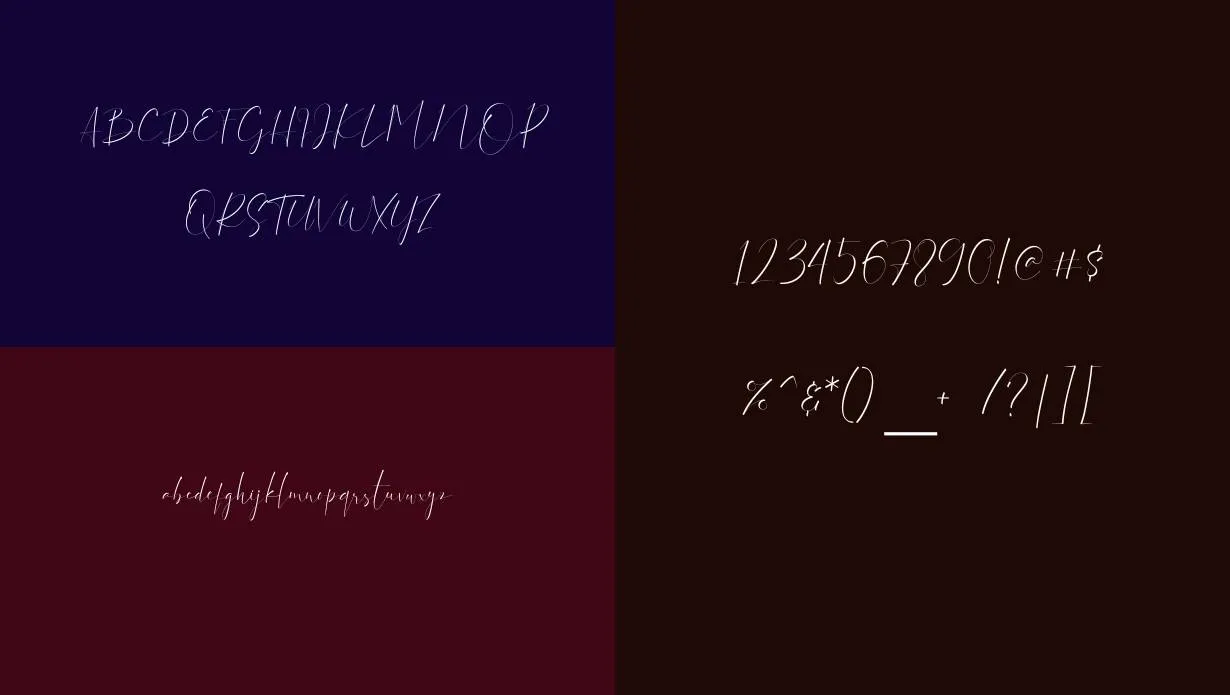
Dattebayo Font is inspired by the typography used in popular anime, and it’s often chosen for fan art, gaming, and creative projects that celebrate anime culture.
The font adds an element of Japanese pop culture and excitement to your design work. To add an extra touch of attractiveness to your design project, try combining this font with the blacksword font or any other unique typeface.
| Name | Dattebayo Font |
| Designer | Angga Mahardika |